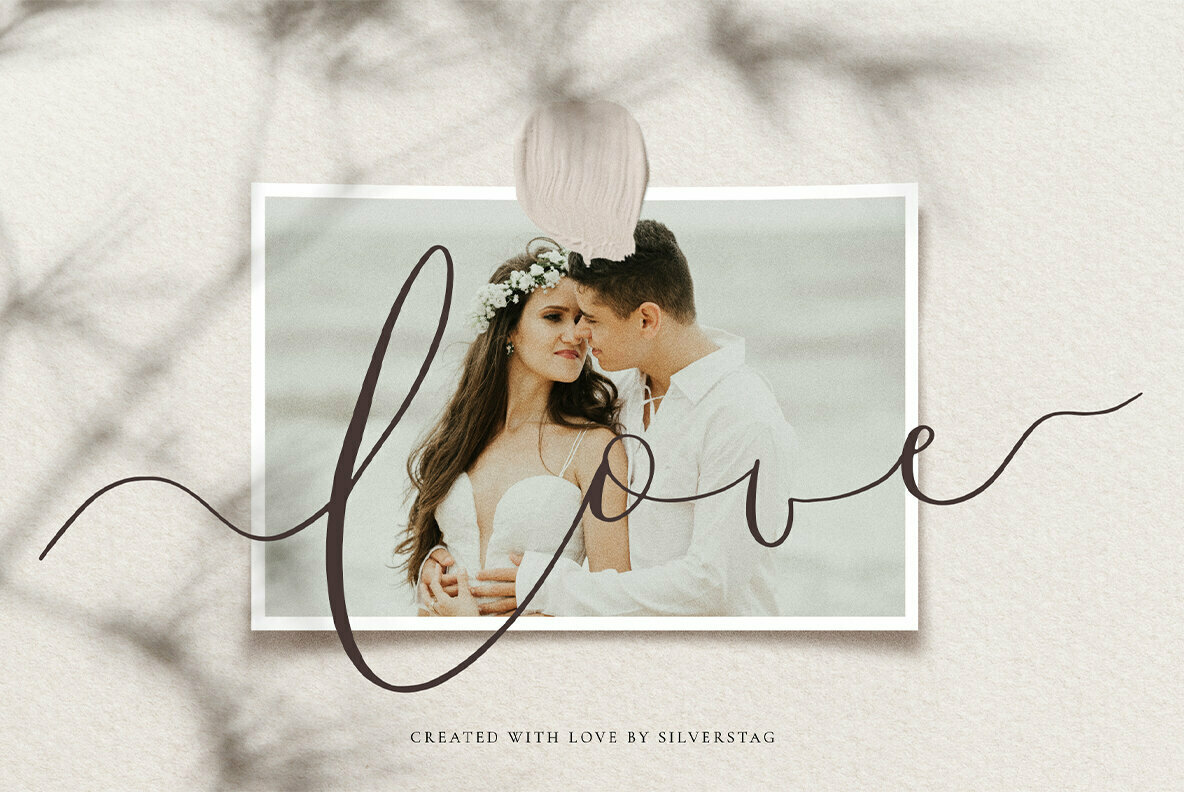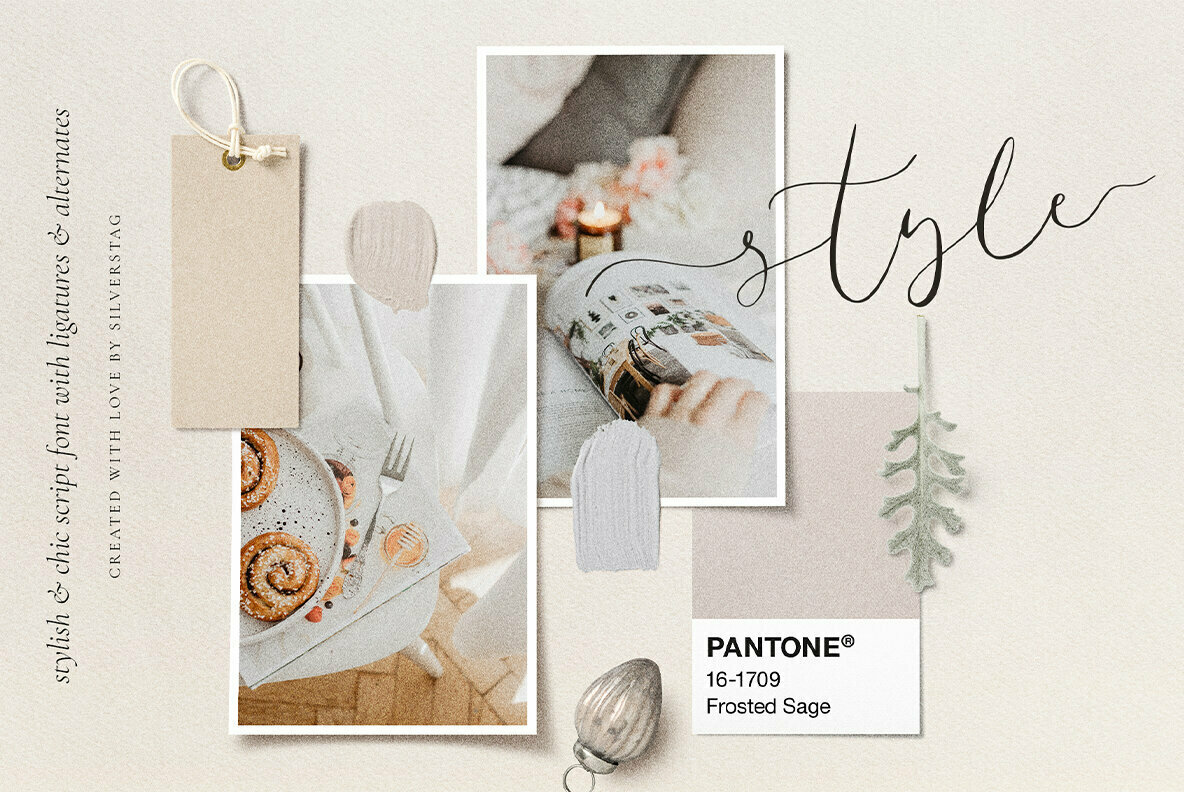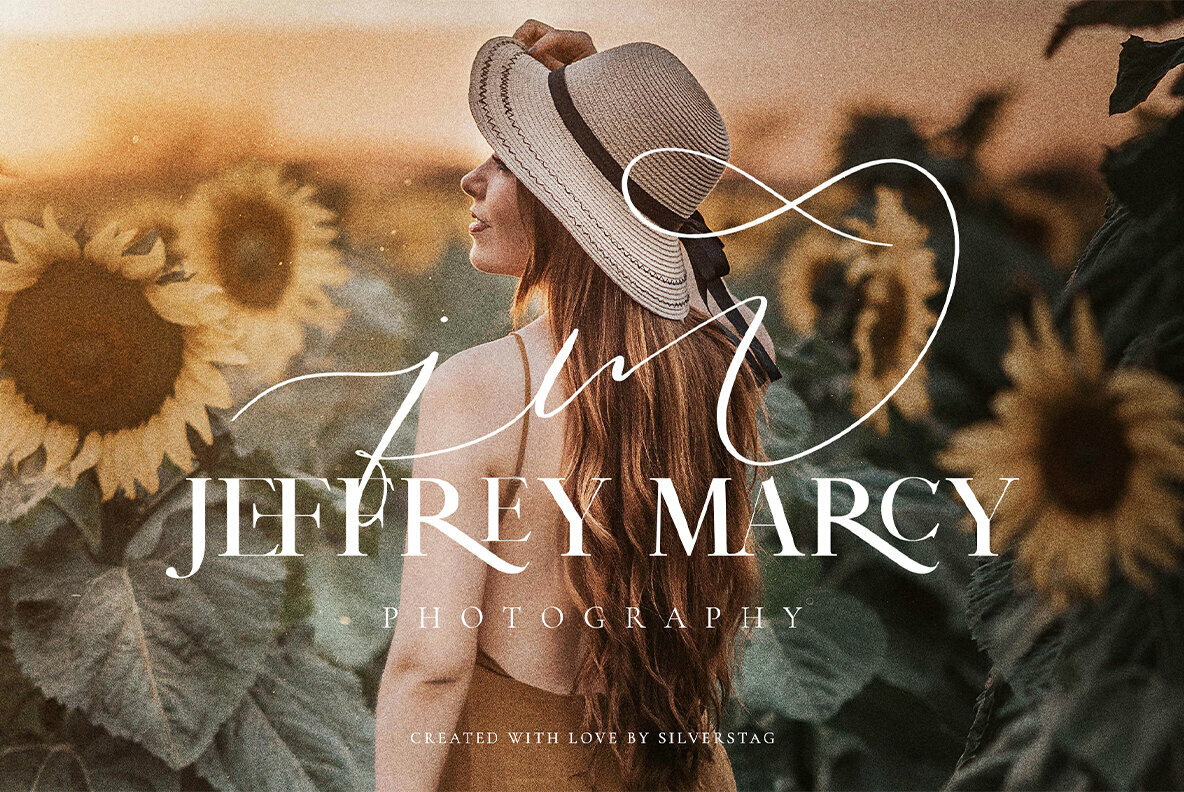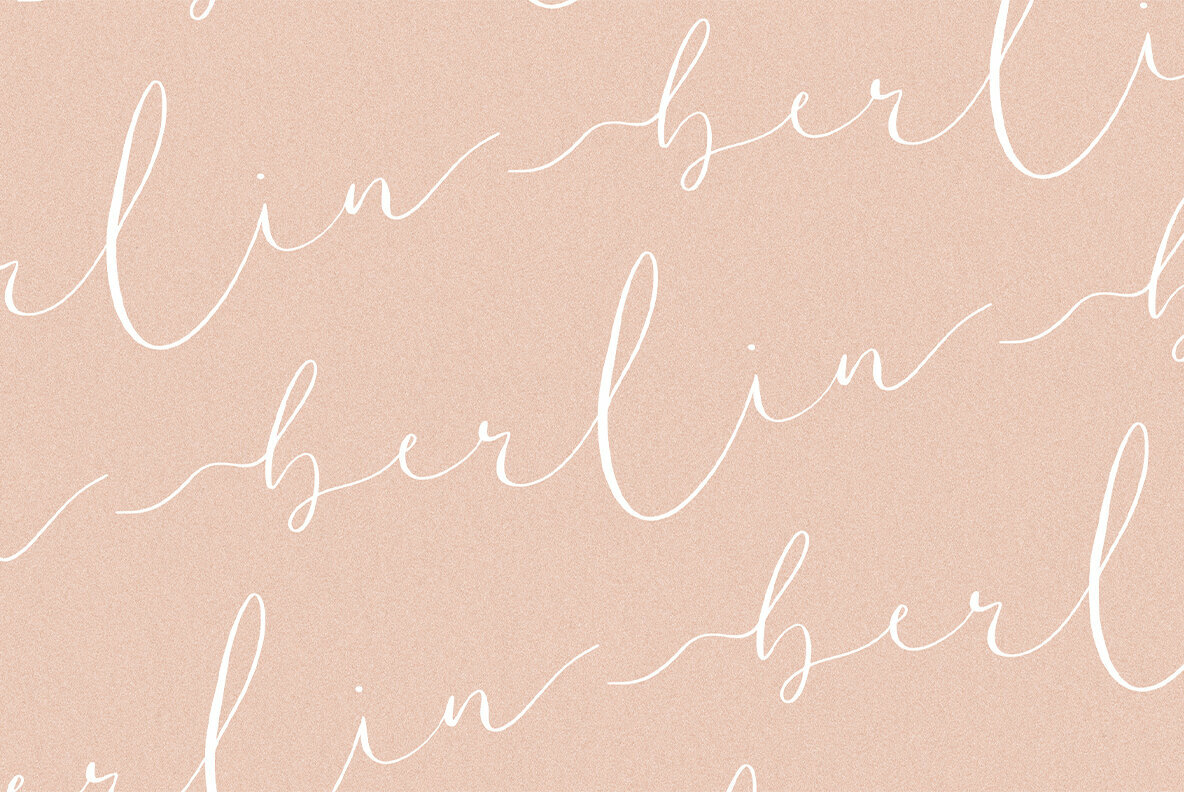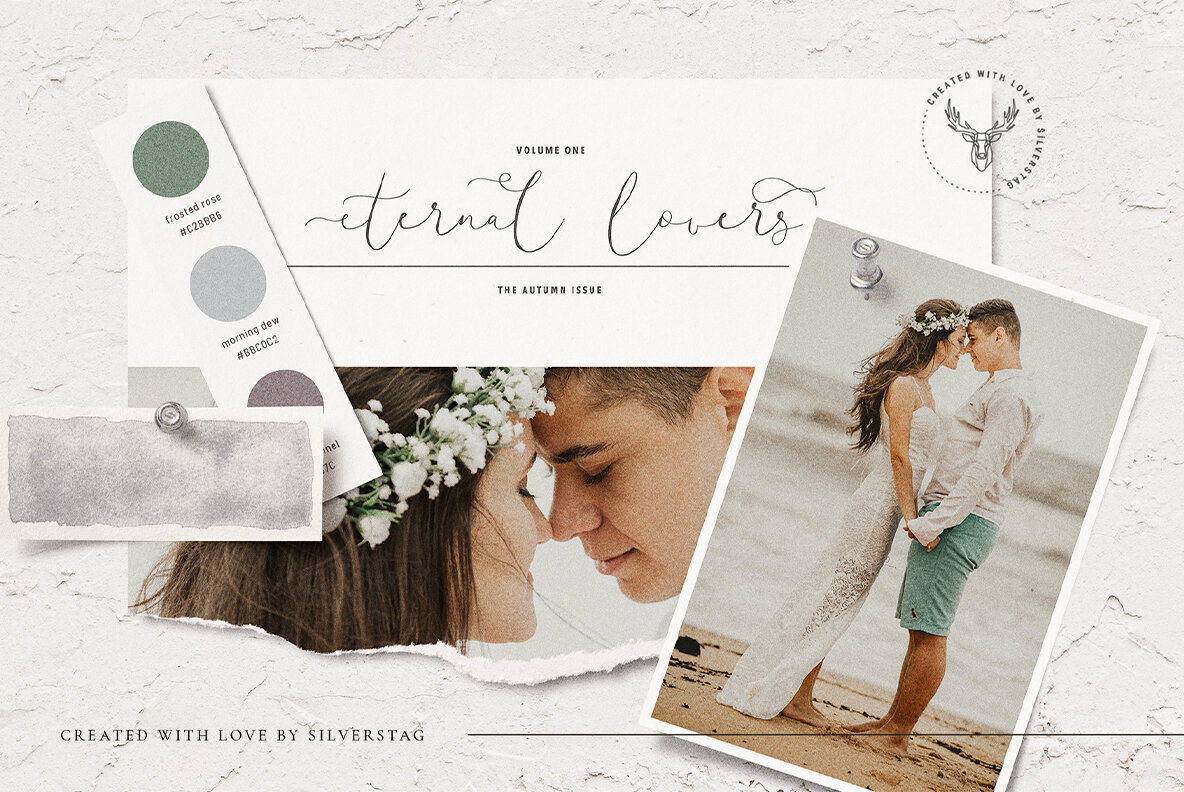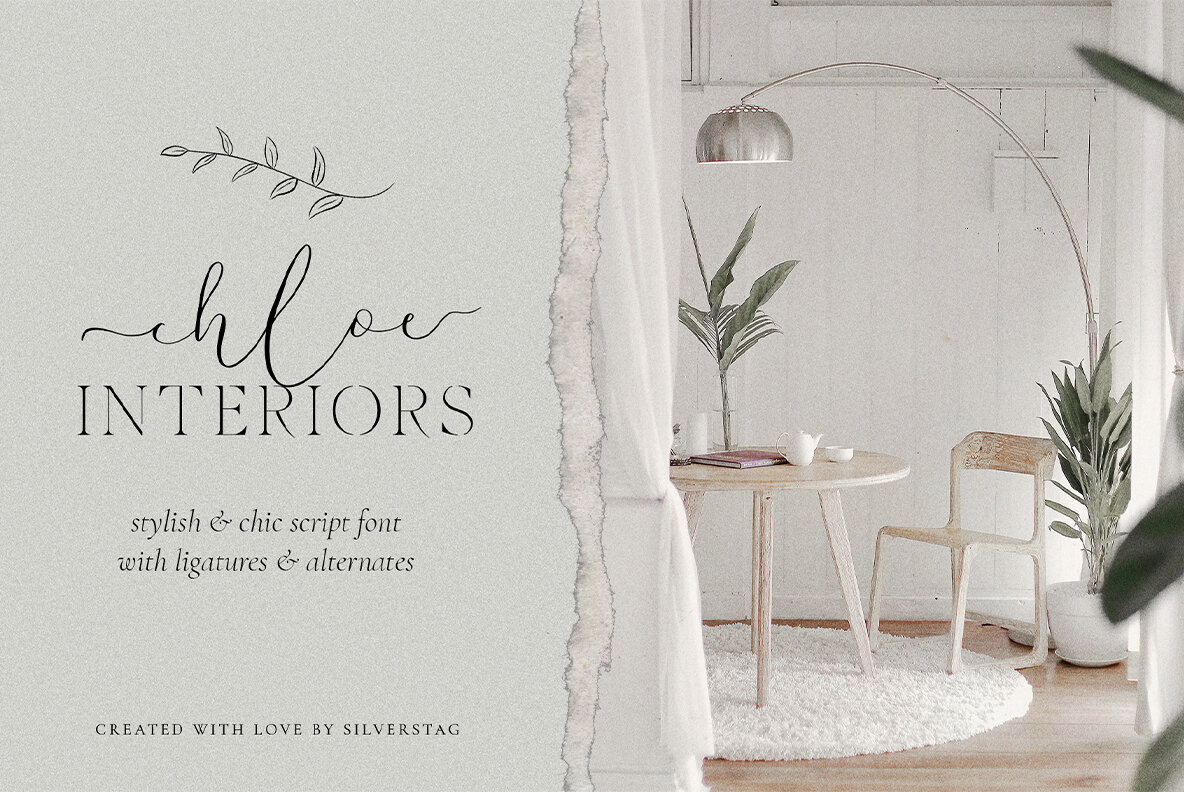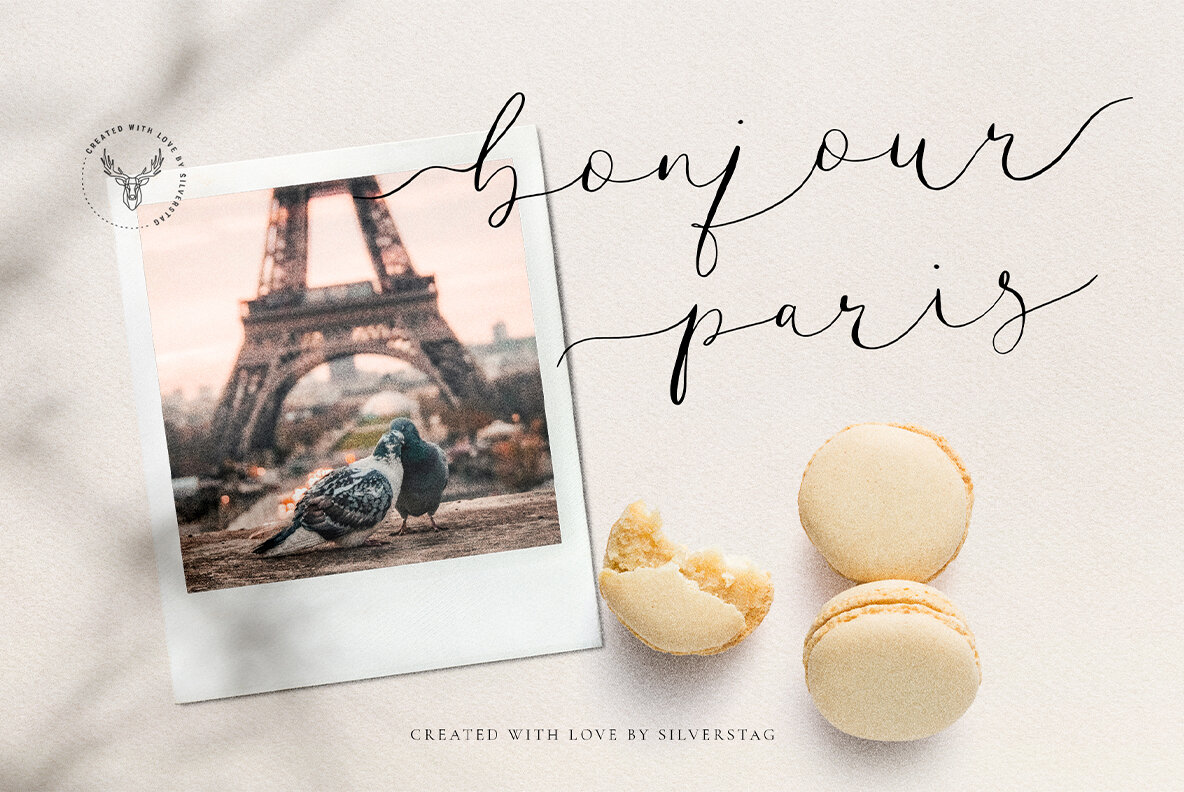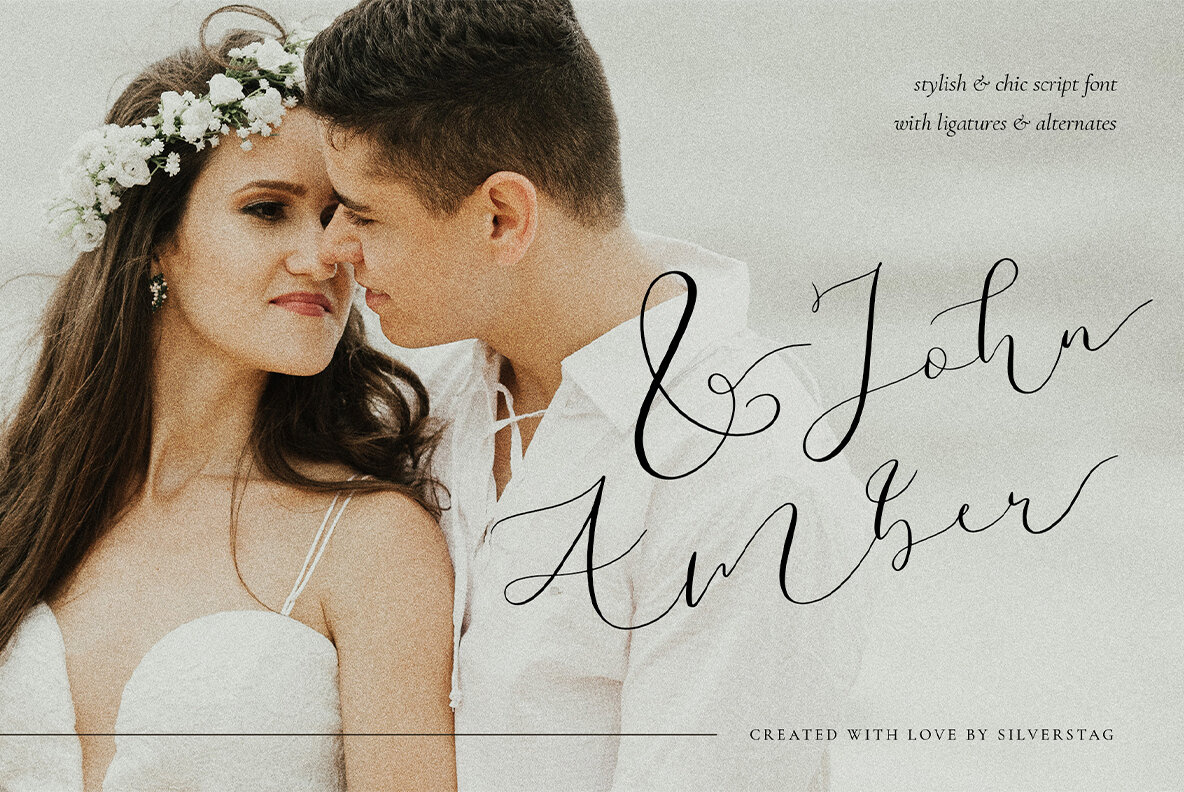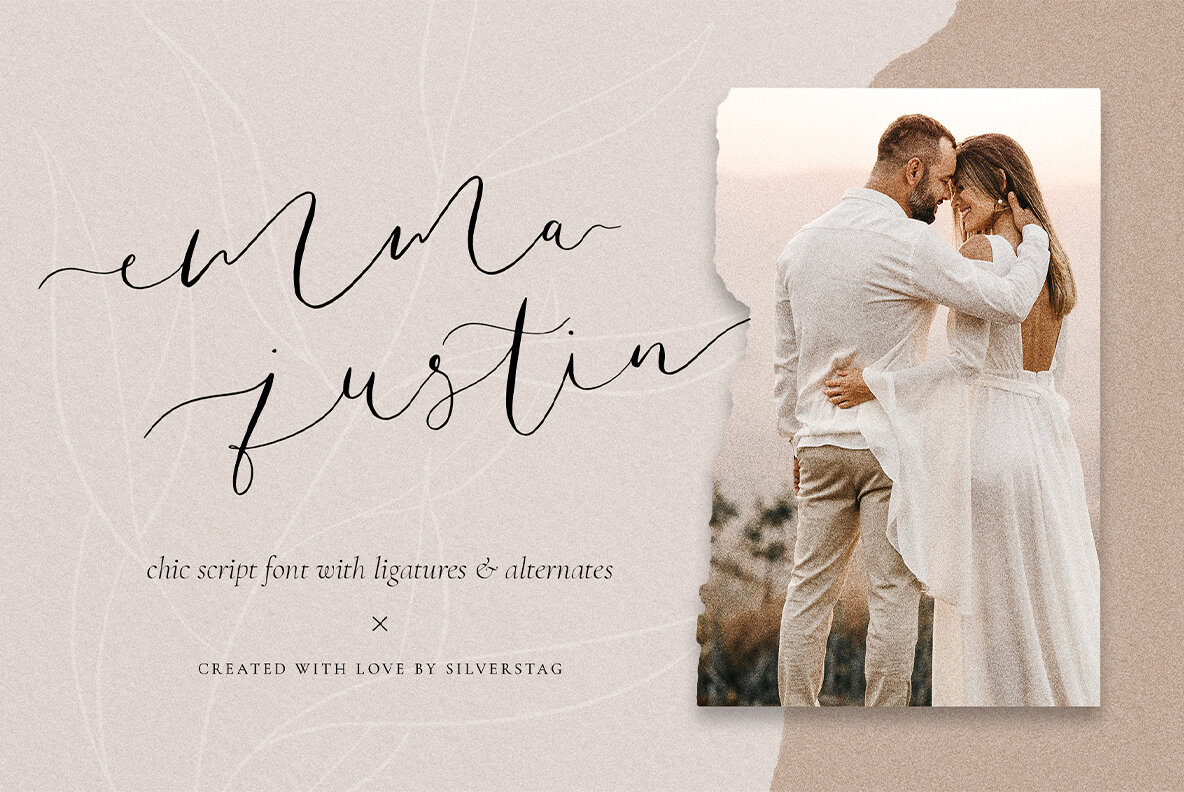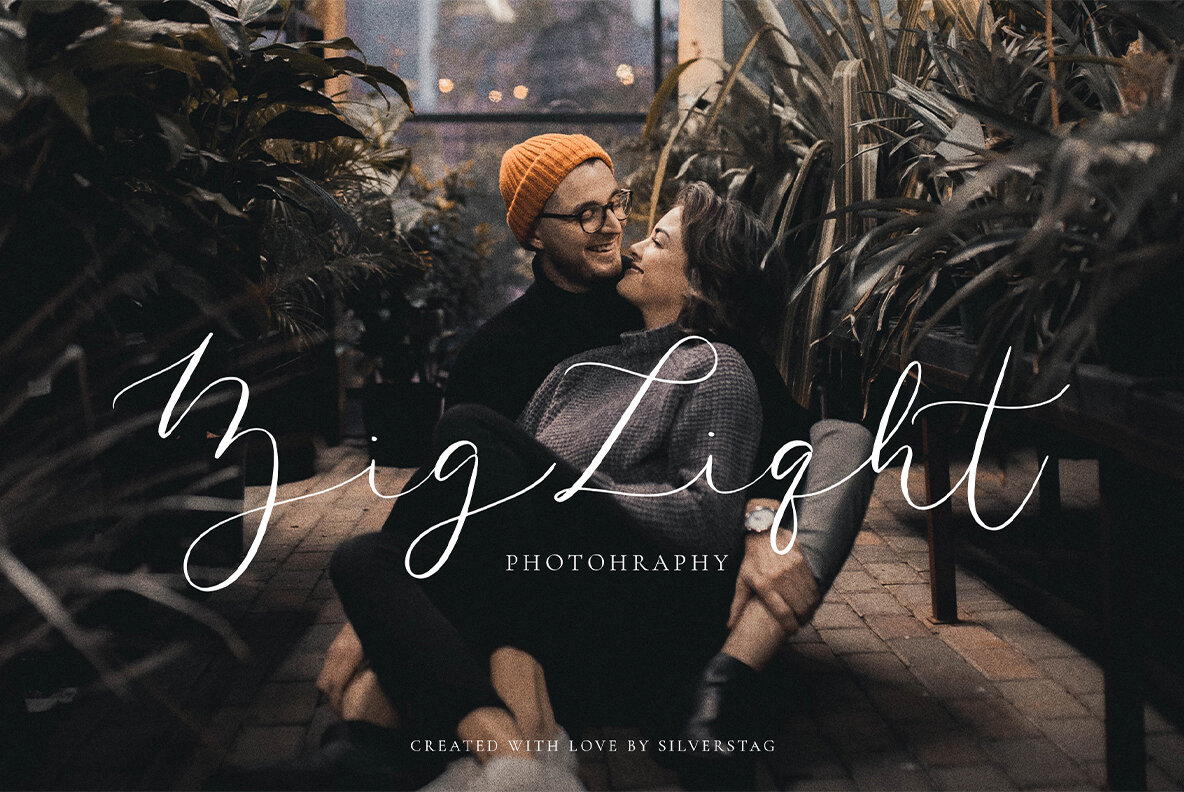
Amelie Signature
Say bonjour to this beautiful font. It is inspired by French art, beauty and by stunningly elegant French women. I have been working on this font since last year, and I have to say I am really proud with the end result. You will get a font that has one set of uppercase letters, two sets of lowercase letters, additional 2 sets of lowercase letters with swashes at the beginning and at the end, as well as over 80 creative alternates & ligatures.
Each letter is hand-drawn and customized so whatever you use it for it will have that true signature style. Don't forget to use alternates and turn on ligatures for a perfect hand written look.
- Alternates & Ligatures
Amelie script font includes the following letters: A À Á Â Ã Ä Å C Ç D Ð E È É Ê Ë I Ì Í Î Ï N Ñ O Ø Ò Ó Ô Õ Ö U Ù Ü Ú Û W Ŵ Y Ý Ÿ Ỳ Ÿ Æ Œ ß Þ þ in uppercase and lowercase and supports Danish, English, French, German, Norwegian Bokmål, Portuguese, Spanish, Swedish.